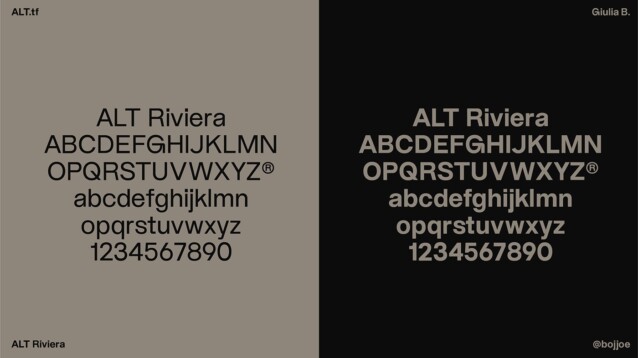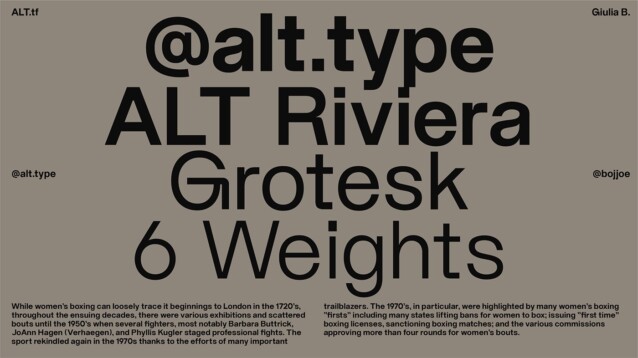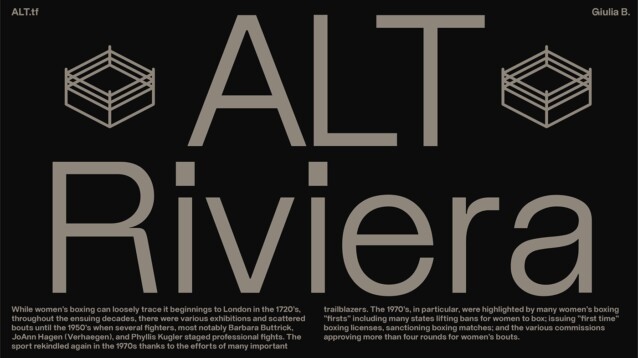
ALT Riviera Font Family
ALT Riviera Font, a geometric sans serif style and a modern and elegant sans serif tagline. ALT Riviera is also a typeface of contrasts, with Boggio pitting ‘hard’ against ‘soft’ forms. In particular, she emphasises the hard shoulders of R, G, and f. “It’s really satisfying to me to look at the contrast between sharp and soft,” she says, “it’s like they’re fighting initially but no one can win so they end up making it work.”
Equipped with over 600+ glyphs, major Latin language support (Basic Latin, Latin A extended and 13% Latin B extended) and a considerable number of quirky symbols that reflect Boggio’s playful and creative nature, ALT Riviera exists as a Grotesk to give it’s partner, whether that be a brand identity, work mark or primary type choice in a graphical system, the tools to pack a real punch.